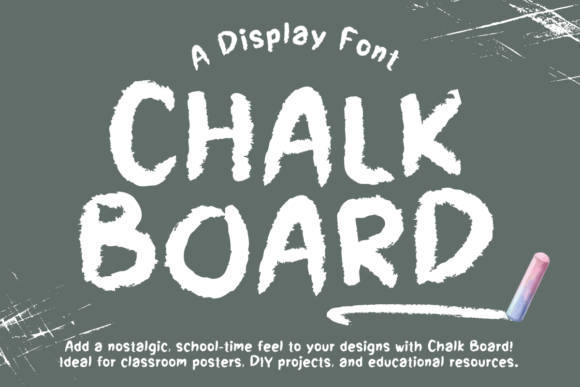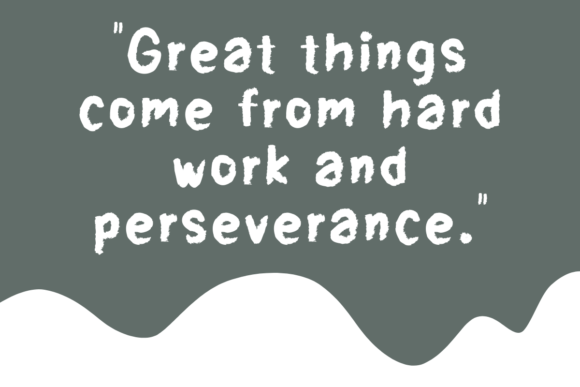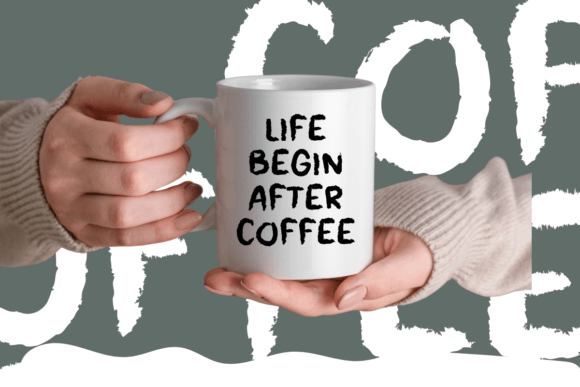
Chalk Board Font
About the Chalk Board Font
Add a touch of class to your work with the Chalk Board Font, a truly exceptional typeface. Chalk Board Font is a bold Display handwritten font, perfect for digital note-taking. Its versatility makes it ideal for various projects such as Procreate designs, blog posts, logos, branding, digital planners, invitations, greeting cards, photo albums, and much more.
Chalk Board Font Usage Examples
Chalk Board Font Example